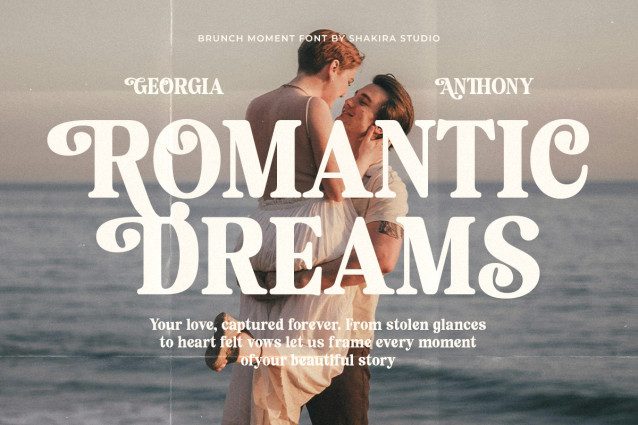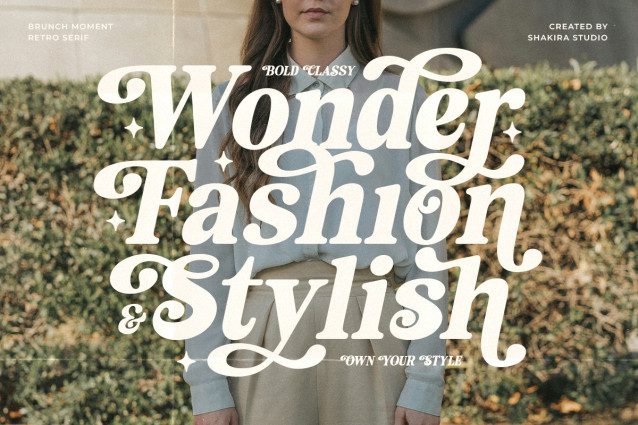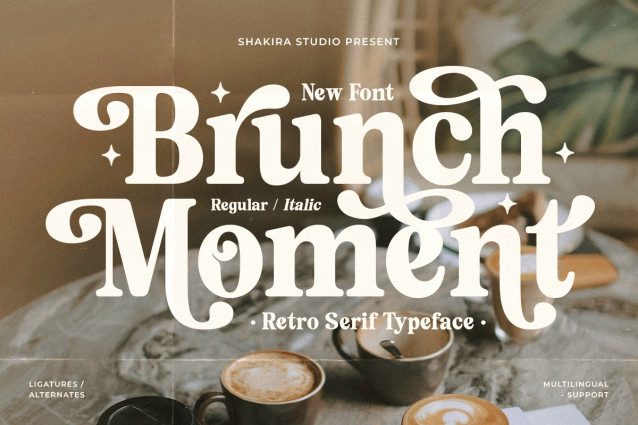
Brunch Moment Font
Brunch Moment Font is a luxurious retro display serif font available in regular and italic styles. It features elegant alternates and stylish ligatures, making it perfect for branding, editorial designs, social media, packaging, and more. Its timeless charm adds sophistication to any project.